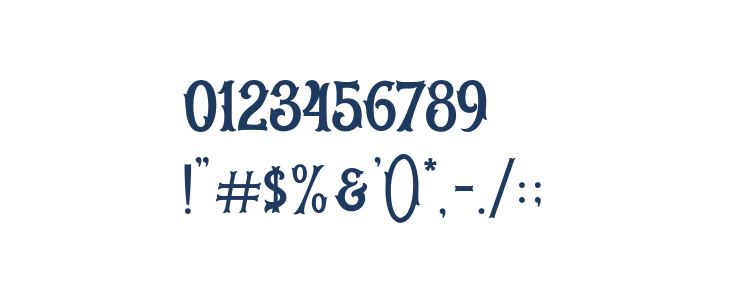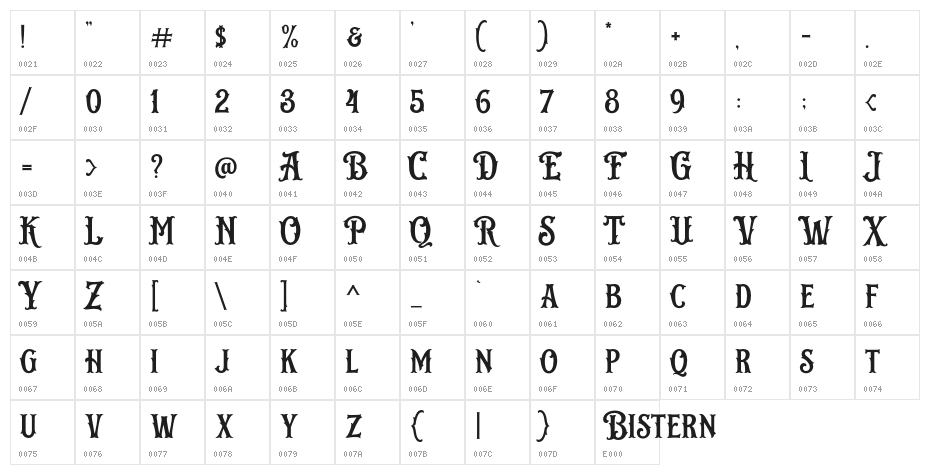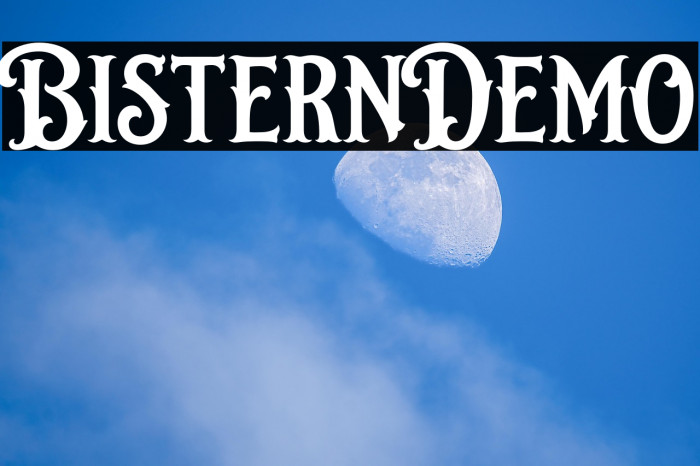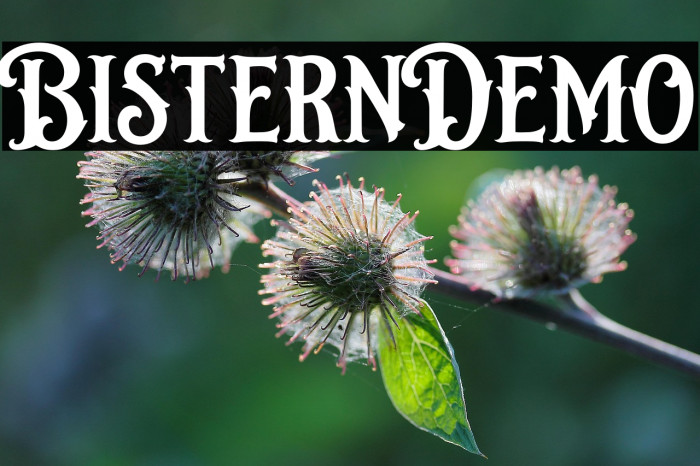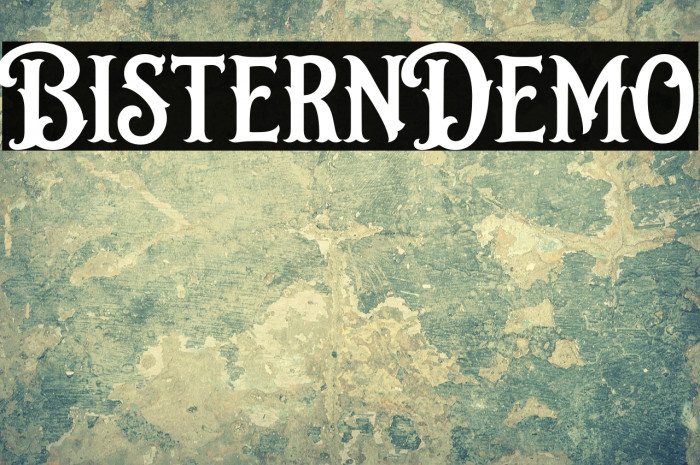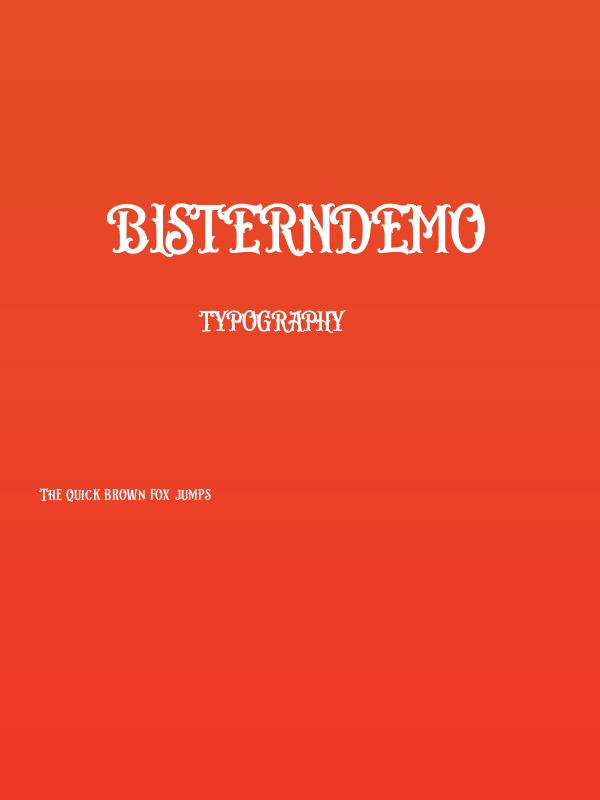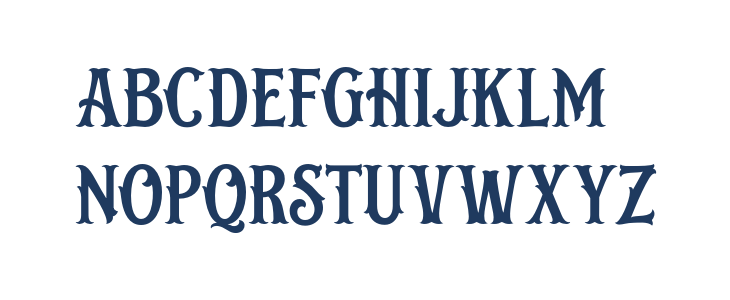
BisternDemo Font
| Stile generale | Vintage, Gothic |
| Progetti proposti | Ideal for branding, invitations, posters, and any project requiring a vintage or gothic touch. |